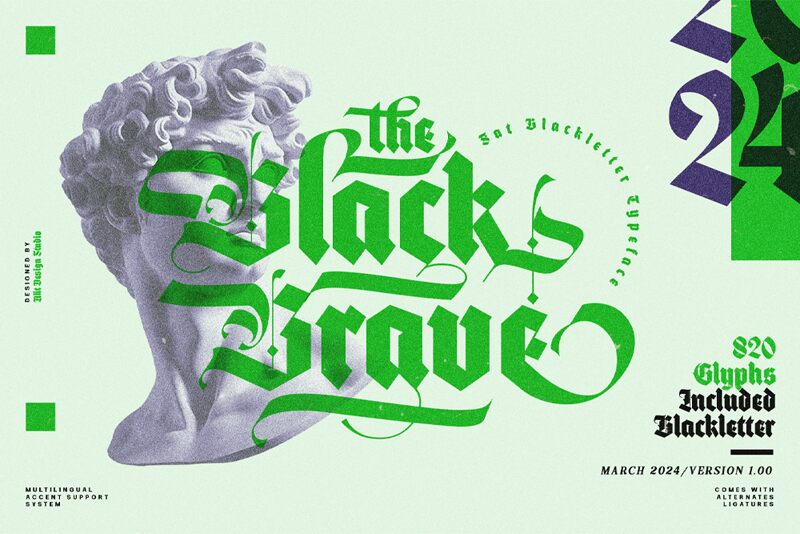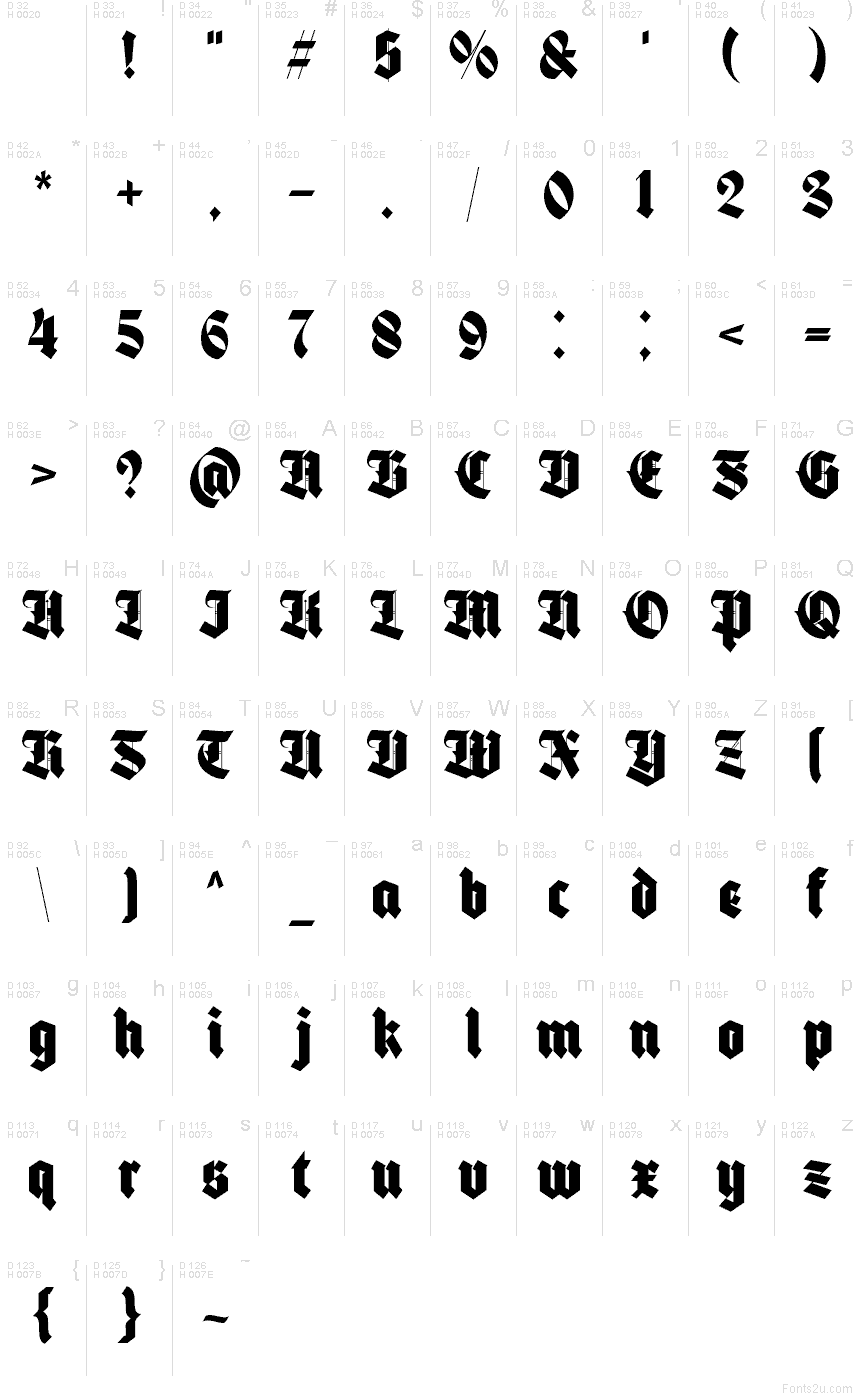
Black Brave Regular
Black Brave font by Alit Design is a free modern gothic font that hits with the weight of carved stone and the drama of medieval banners. Heavy strokes, tight spacing, and angular curves create a dense, inky texture that feels both vintage and freshly brutal. The letterforms stack together like a wall of black bricks, giving headlines a solid, unshakable presence with just enough flair in the curves to keep it elegant, not clumsy.
Using Black Brave, your work immediately leans into bold statements—metal band logos, tattoo-inspired posters, barbershop branding, gaming titles, apparel graphics, and moody packaging all shine with its strong, gothic voice. This free font thrives in big sizes where its sharp contours can really breathe. For balance, pair it with a clean geometric sans-serif for supporting text; let Black Brave handle the punchy words while the simpler typeface keeps everything readable.